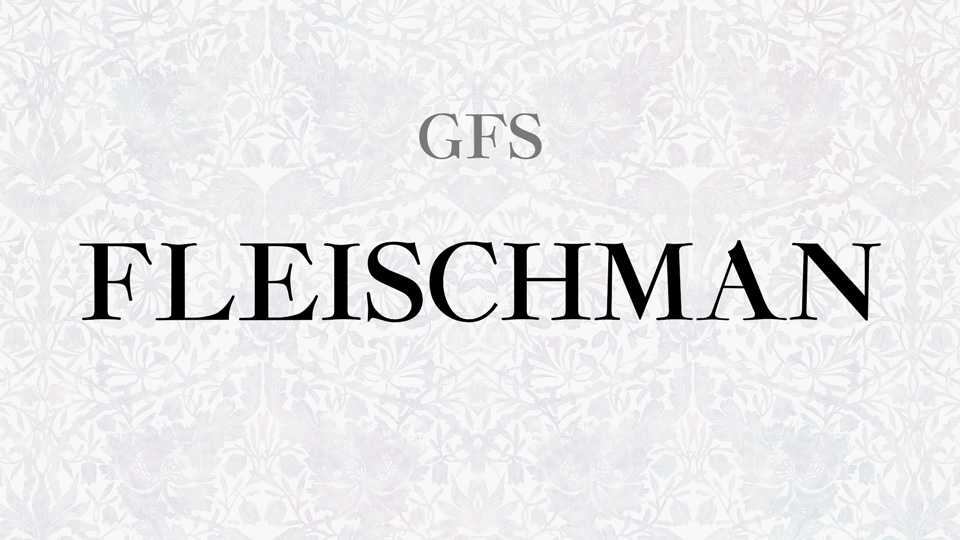
Download GFS Fleischman font, a contrast display serif typeface, based on a design by Johann Michael Fleishman, typecutter of the Dutch Enschedé foundry and follows the baroque style of the mid-18th century aesthetics.